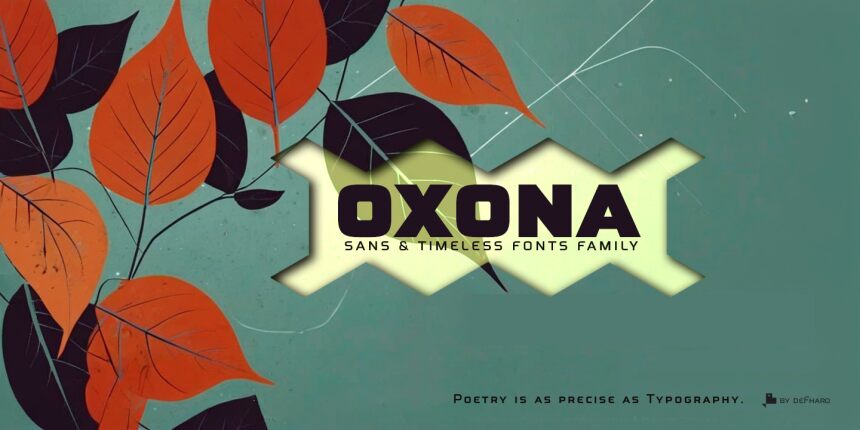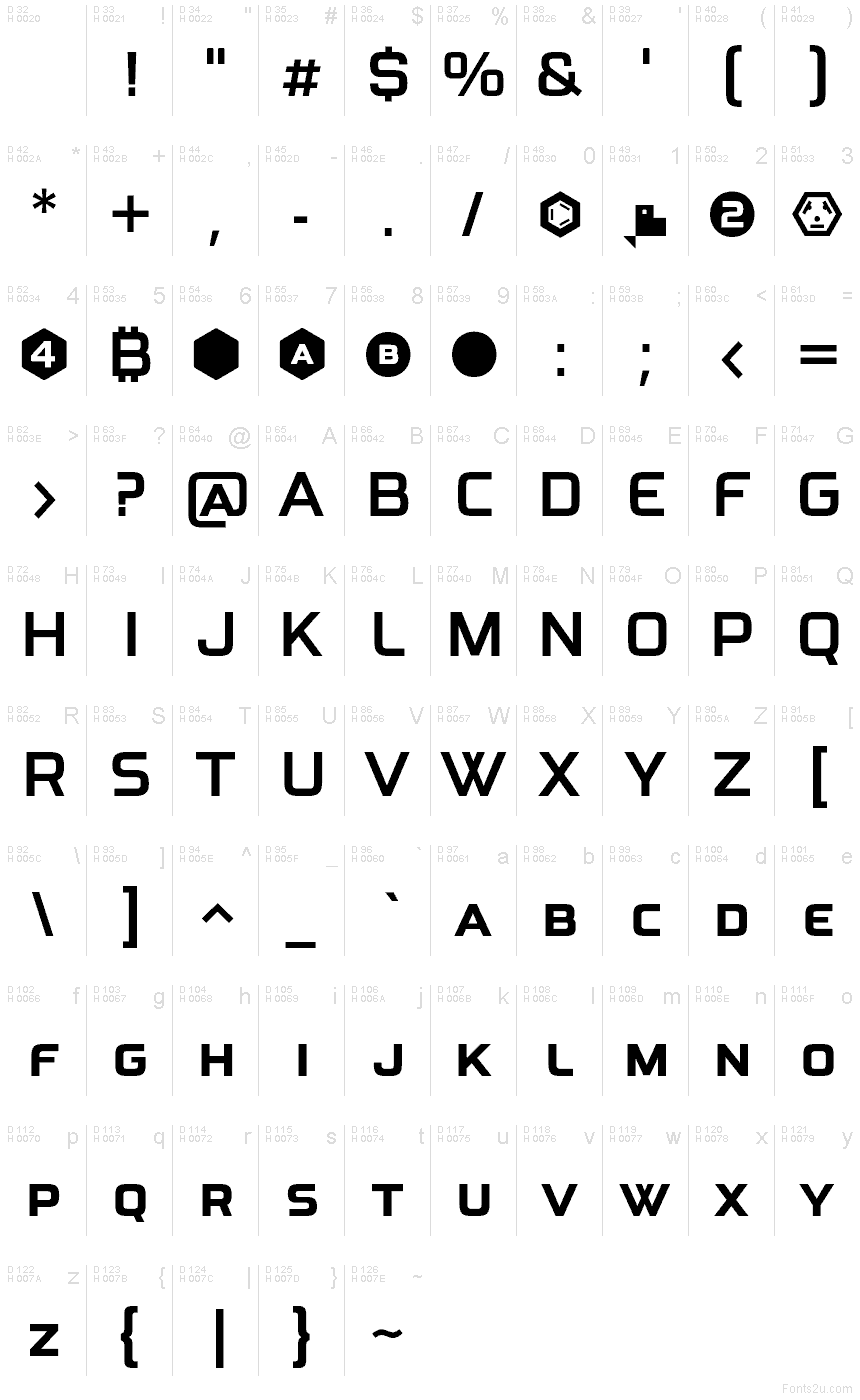
Oxona Caps Bold
Oxona Caps is a revamped and streamlined version of the Oxona family, preserving the essence of its predecessor. It is a capital letter and small caps typeface that redefines legibility and visual impact. This typeface retains its futuristic essence, and its geometric structure and refined optical adjustments guarantee a unique visual harmony, ideal for conveying messages with strength and elegance on any medium, whether digital or printed.
Balanced and precise design: Each letter has been optimized to ensure impeccable and harmonious readability.
Four weights for maximum versatility: Light, Regular, Bold, and Extra Bold, to suit any creative need.
Compatibility with Latin Extended-A, allowing use in over 200 languages.
Oxona Caps is a futuristic sans serif with 4 weights, meticulously calculated square proportions that aims to redefine readability and visual impact.
Every stroke, every curve and every angle has been polished to achieve a perfect balance between absolute clarity and aesthetic boldness due to its cleanliness, modernity and functionality, the geometric structure and its subtle optical adjustments that generate great harmony and make it a unique typeface, as rational as it is expressive.